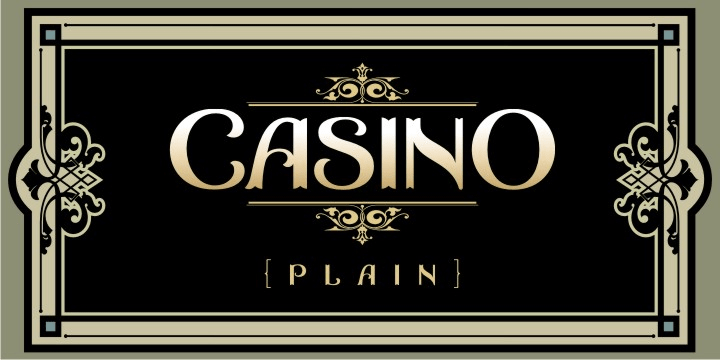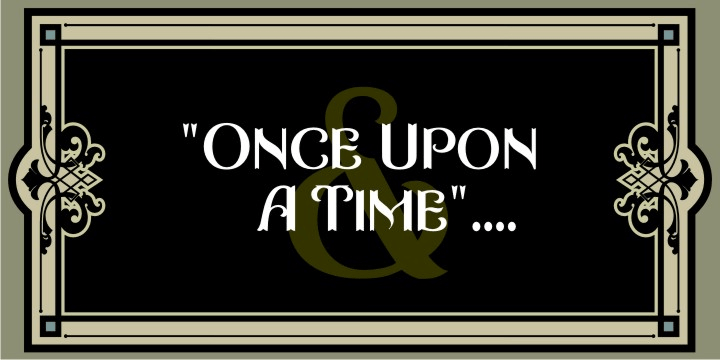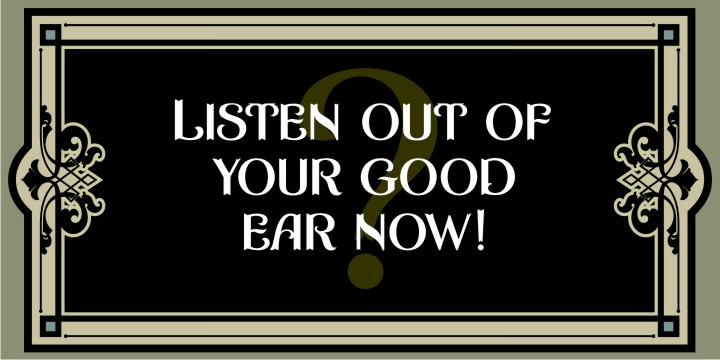
Casino Plain
Font Family by Art and Sign Unlimited
Completing the Casino Family is Casino Plain. Legibility with an abundance of flair and versatilty.